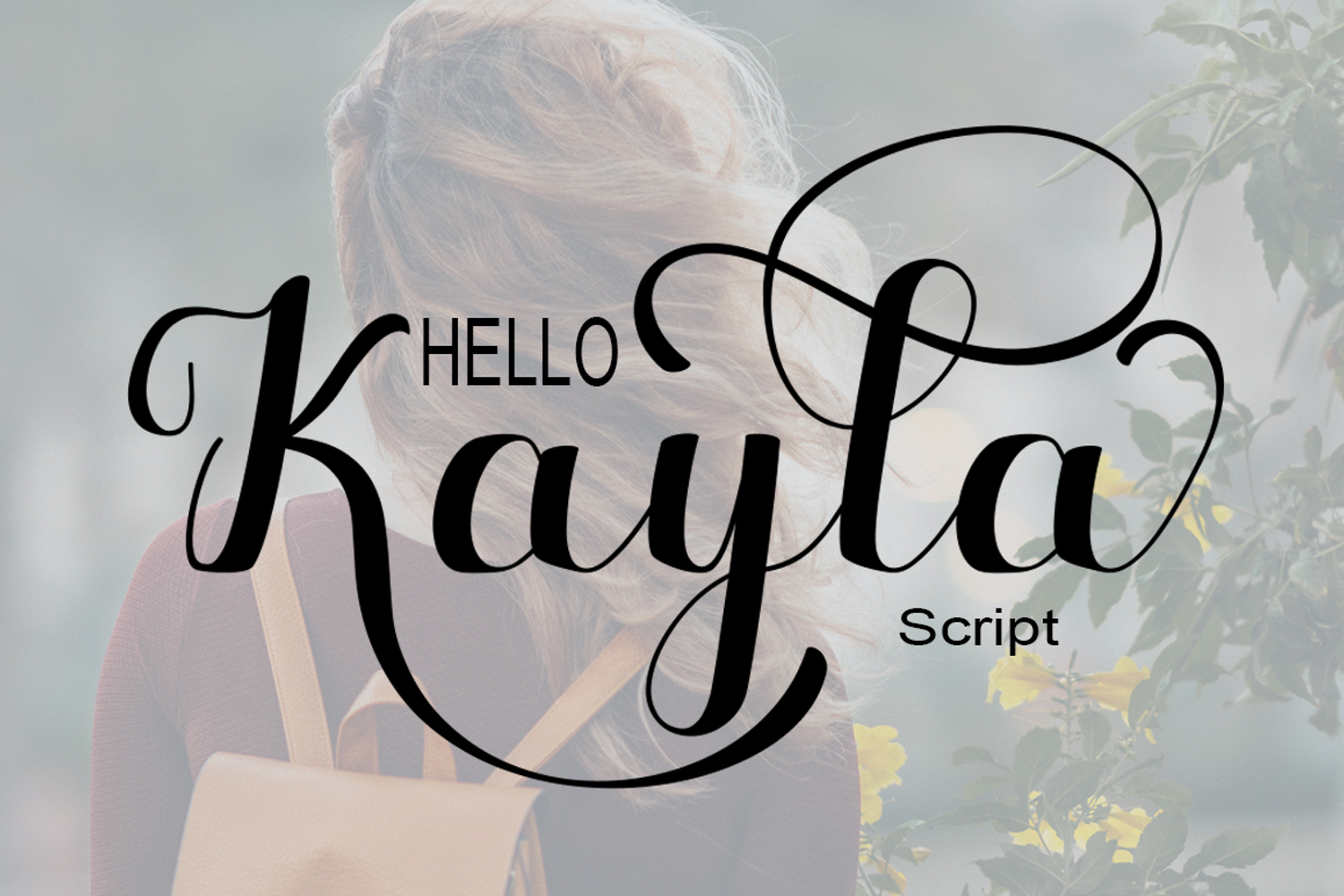
Hello Kayla
I Want To Introduce New Fonts
Hello Kayla Script
Hello Kayla Script New fresh & modern style with handmade calligraphy, decorative characters and dancing lineage! So wonderful are invitations like greeting cards, branding material, business cards, quotes, posters, and more !!
Hello Kayla Script The comes with 672 glyphs. Alternate characters are divided into several Open Type features such as Swash, Stylistic Sets, Stylistic Alternate, Contextual Alternate. Open Type features are accessible by using Open Type savvy programs such as Adobe Illustrator, Adobe InDesign, Adobe Photoshop Corel Draw X versions, and Microsoft Word. And this font has code PUA unicode (font with special code). So that all alternative characters can be easily accessed by craftsmen or designers.